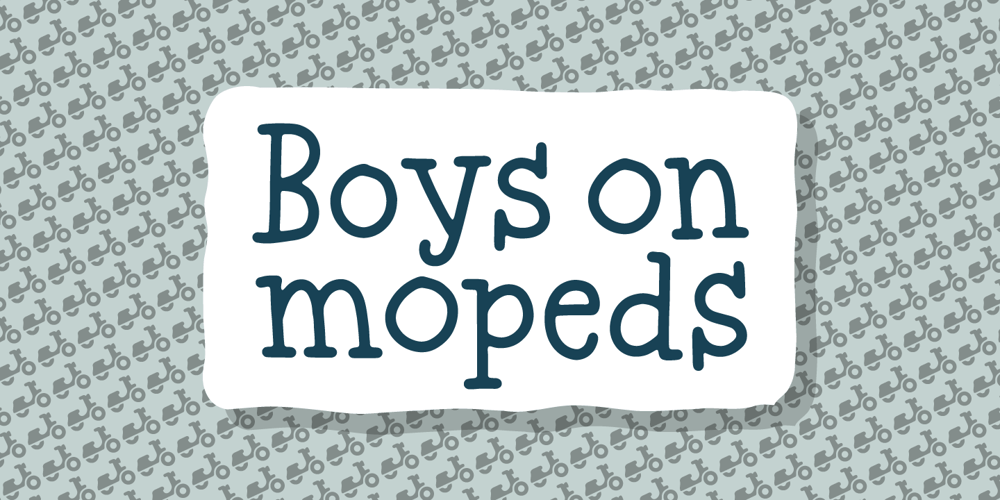
Boys on mopeds Font Family was designed by Jakob Fischer and published by PizzaDude.dk. Boys on mopeds contains 1 styles and family package options. Sometimes you just want to have fun, and “Boys on mopeds” will take you there! Boys on mopeds are a simple-minded serif font with a fun and loose twist. I’ve added several versions of each lowercase letter: you have 4 different versions to choose from. Enough to make your invitations, diary, posters, postcards, novels, stickers … ahhh … the list is long – and the use of Boys on mopeds is almost endless! Comes with a bunch of international letters, so fun is available in many languages! 🙂